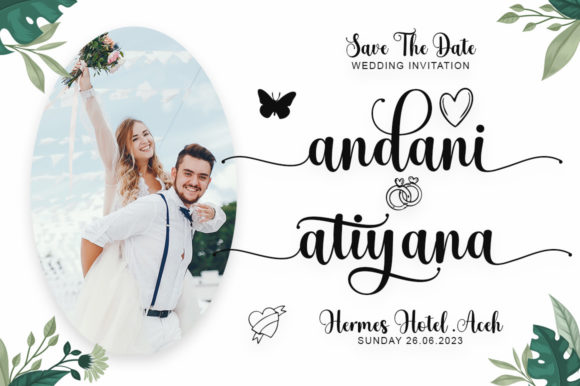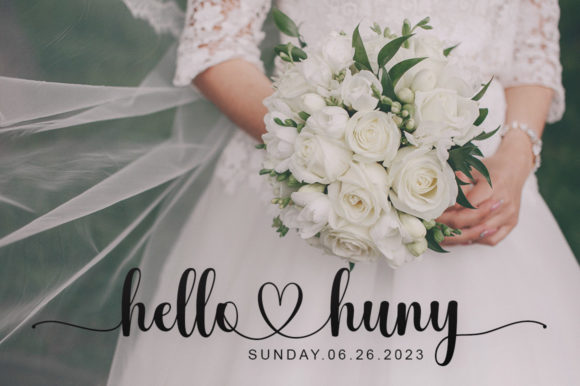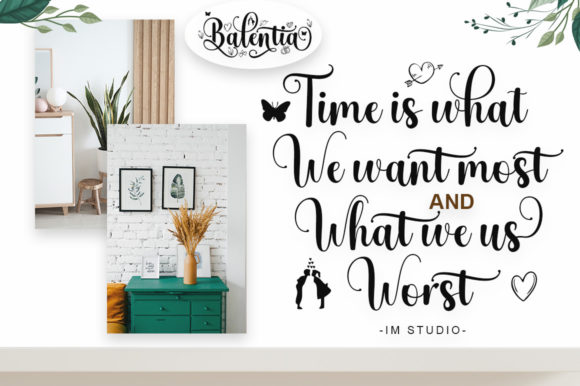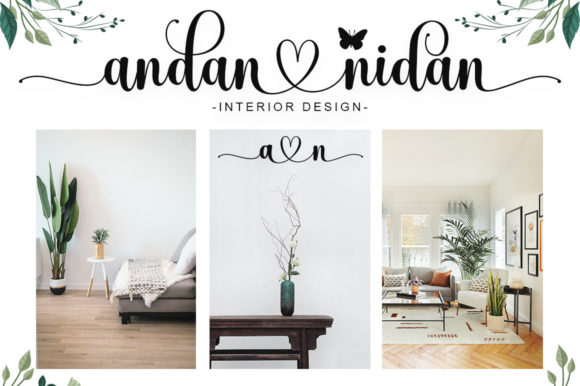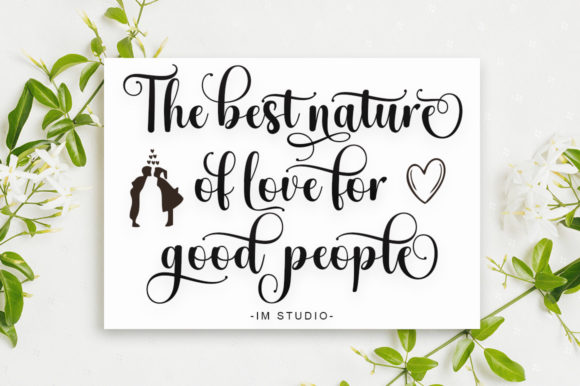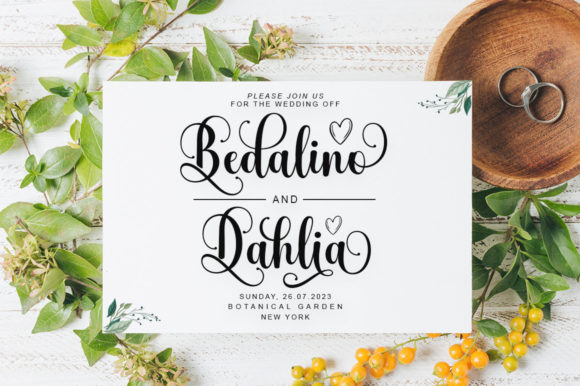
Introducing Balentia Font: A Romantic and Sweet Modern Calligraphy Typeface
Are you a designer or crafter looking for a unique and elegant font to add a touch of sophistication to your projects? Look no further than Balentia Font, a romantic and sweet modern calligraphy typeface that is sure to captivate your audience. In this article, we’ll dive into the features and benefits of Balentia Font, and explore how it can elevate your designs to the next level.
What is Balentia Font?
Balentia Font is a modern calligraphy typeface that exudes romance and sweetness. Its characters dance along the baseline, creating a sense of movement and fluidity that is both visually appealing and engaging. This font is perfect for designers and crafters who want to add a touch of elegance and sophistication to their projects, whether it’s a wedding invitation, a branding campaign, or a DIY craft project.
PUA Encoding: Easy Access to Glyphs and Ligatures
One of the standout features of Balentia Font is its PUA (Private Use Area) encoding. This means that you can access all the amazing glyphs and ligatures with ease, without having to navigate complex font menus or use special software. With PUA encoding, you can simply type in the text and let the font do the rest, automatically replacing characters with their corresponding glyphs and ligatures.
Features and Benefits of Balentia Font
So what makes Balentia Font so special? Here are just a few of its key features and benefits:
- Romantic and sweet design: Balentia Font is perfect for designers and crafters who want to create elegant and sophisticated designs that exude romance and sweetness.
- Modern calligraphy style: This font features a modern calligraphy style that is both trendy and timeless, making it perfect for a wide range of design projects.
- PUA encoded: With PUA encoding, you can access all the glyphs and ligatures with ease, making it simple to create beautiful and intricate designs.
- Easy to use: Balentia Font is designed to be easy to use, even for those who are new to calligraphy fonts or PUA encoding.
- Versatile: This font can be used for a wide range of design projects, from wedding invitations and branding campaigns to DIY craft projects and more.
How to Use Balentia Font in Your Designs
So how can you use Balentia Font in your designs? Here are a few ideas to get you started:
- Wedding invitations: Balentia Font is perfect for wedding invitations, with its romantic and sweet design that is sure to set the tone for a beautiful and memorable wedding.
- Branding campaigns: This font can also be used for branding campaigns, adding a touch of elegance and sophistication to your logo and marketing materials.
- DIY craft projects: Balentia Font is also great for DIY craft projects, such as making cards, gift tags, and other handmade items.
- Signage and displays: This font can also be used for signage and displays, adding a touch of elegance and sophistication to your storefront or exhibition booth.
In conclusion, Balentia Font is a romantic and sweet modern calligraphy typeface that is sure to captivate your audience. With its PUA encoding and easy-to-use design, this font is perfect for designers and crafters who want to add a touch of elegance and sophistication to their projects. Whether you’re creating wedding invitations, branding campaigns, or DIY craft projects, Balentia Font is a versatile and beautiful font that is sure to elevate your designs to the next level.